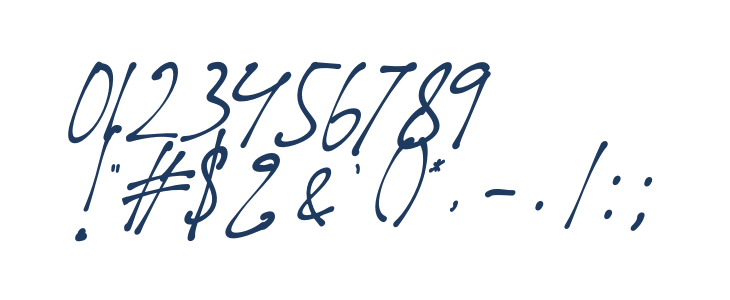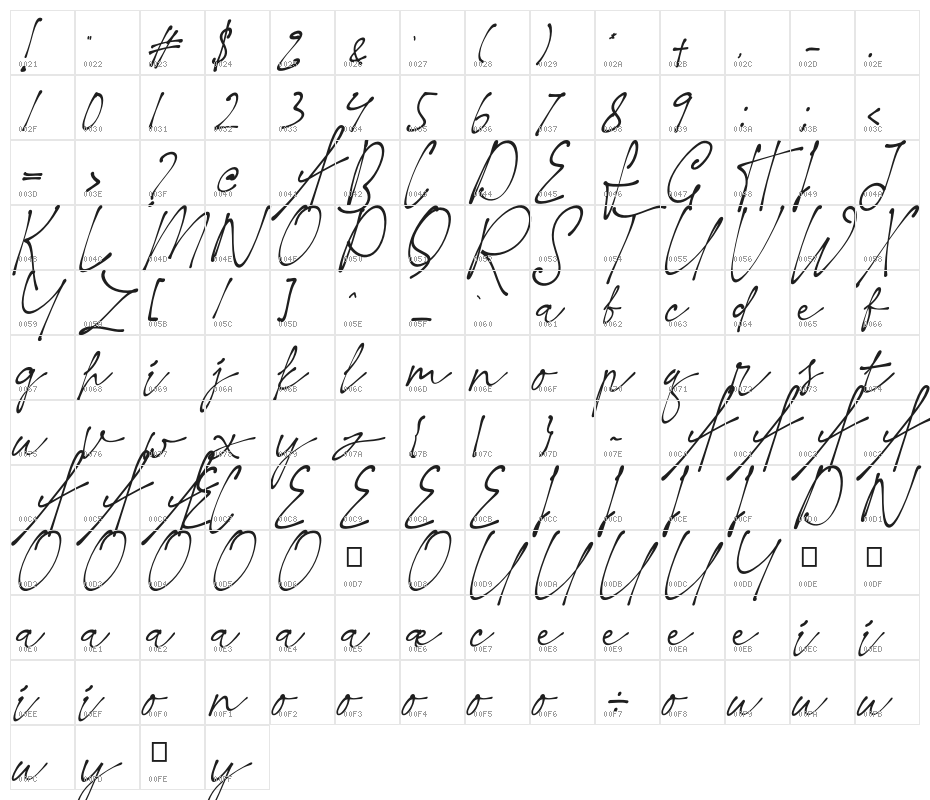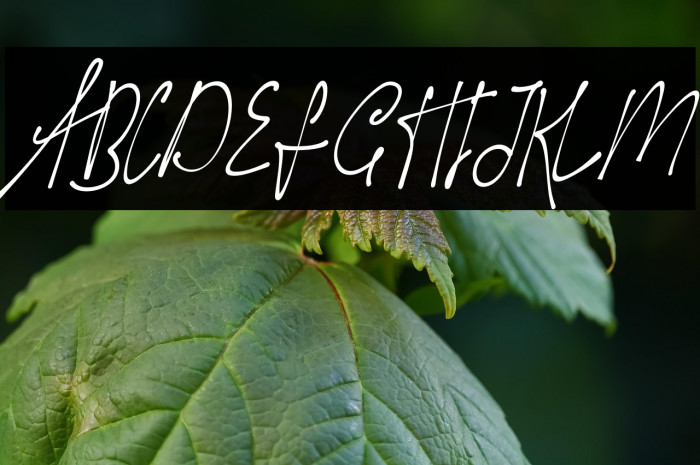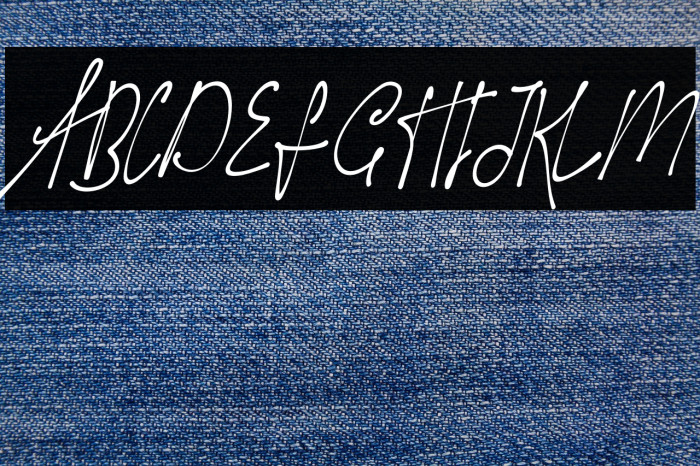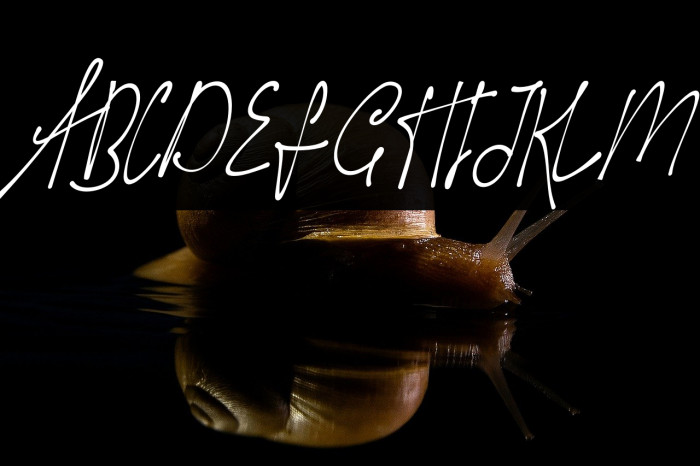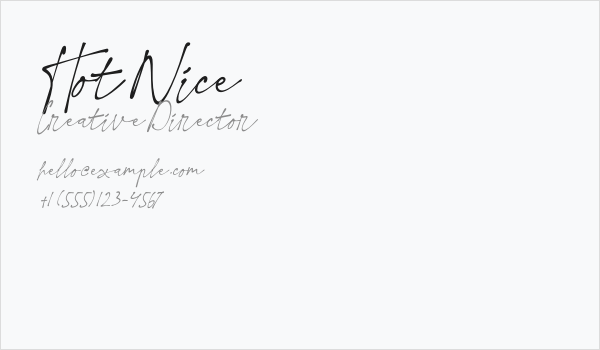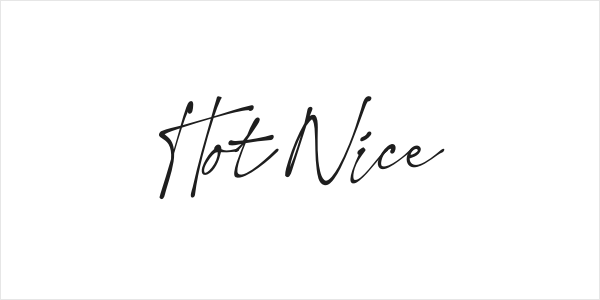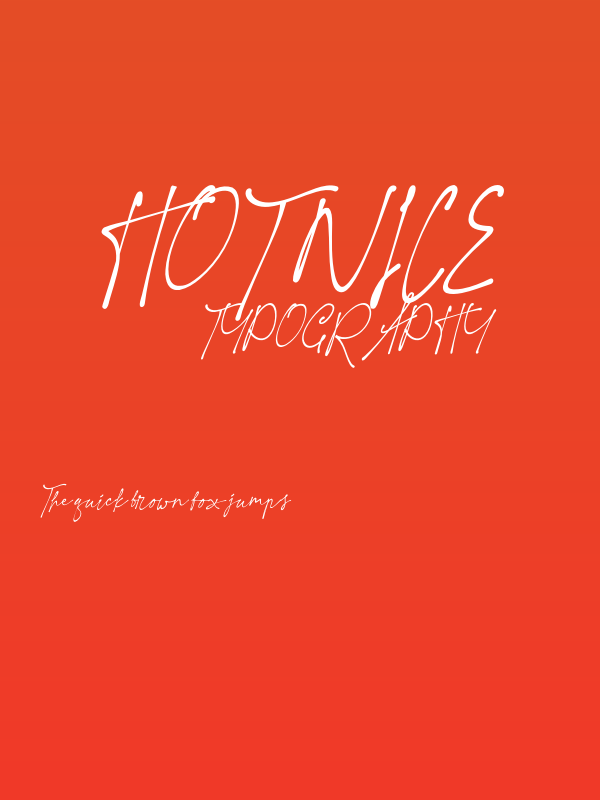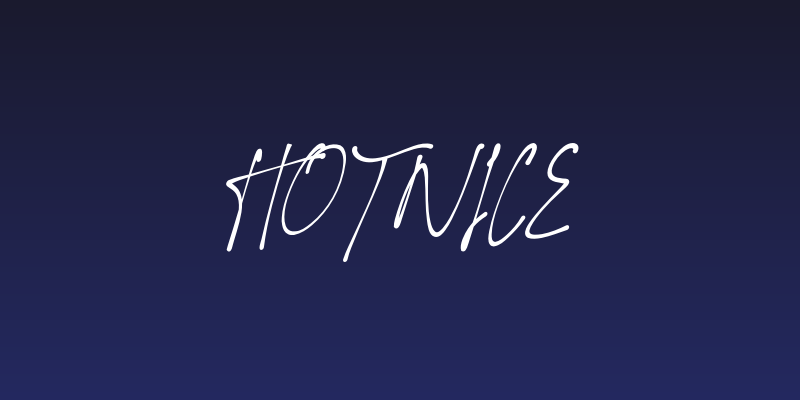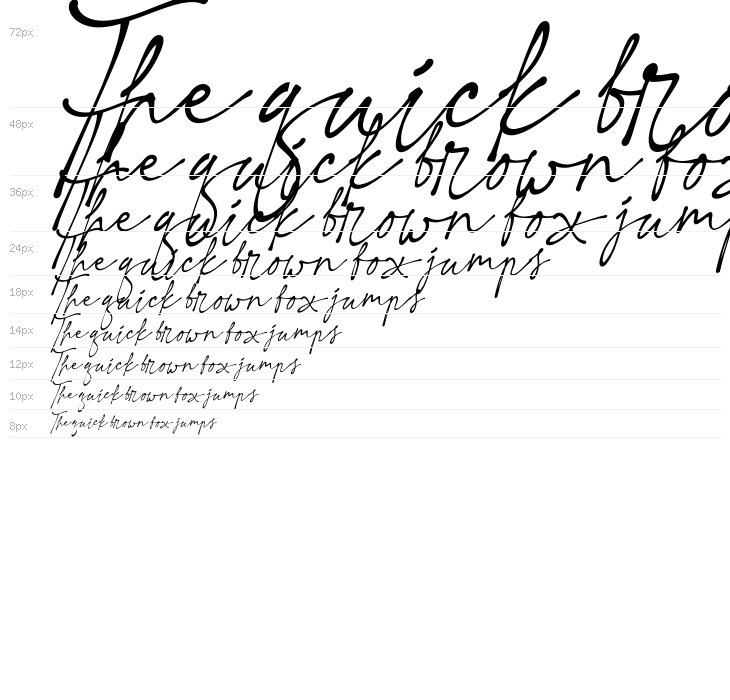
Hot Nice Font
Hot Nice Description
This font exhibits a lively and expressive handwritten style, characterized by its fluid and dynamic strokes. The letters are connected in a cursive manner, giving it a natural and personal touch. The uppercase letters are tall and elegant, while the lowercase letters maintain a consistent flow, enhancing readability. The numbers and special characters are crafted with the same attention to detail, ensuring a cohesive look across all elements. This font's playful yet sophisticated appearance makes it suitable for a variety of creative projects.
| Use Case | Headlines, Logos, Invitations |
| Proposed Projects | Ideal for greeting cards, invitations, personal branding, and artistic projects. |